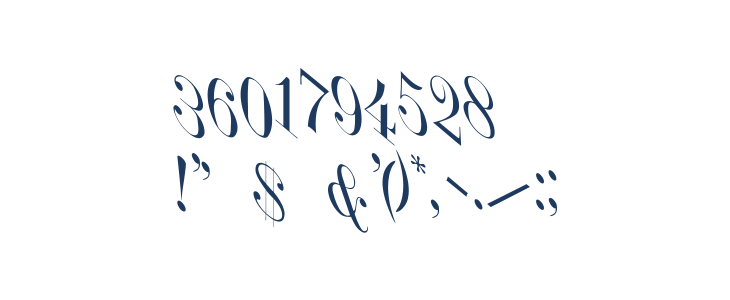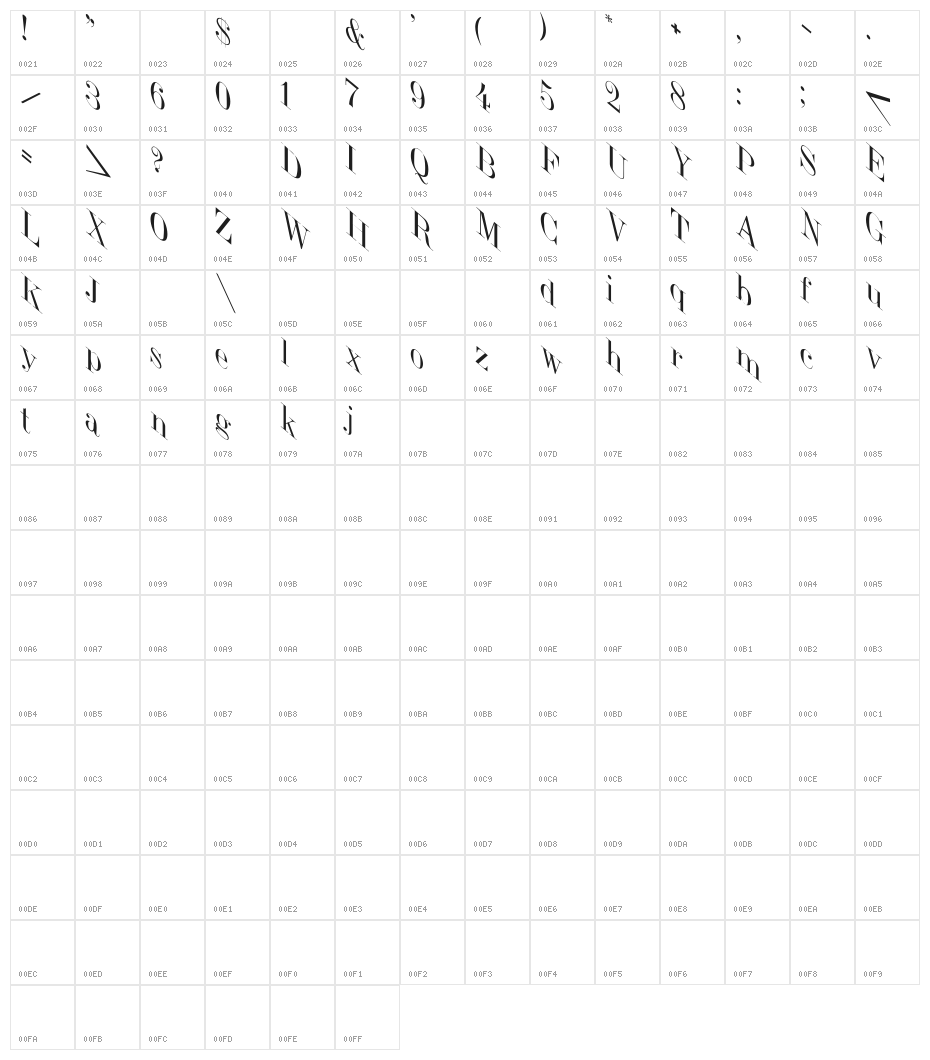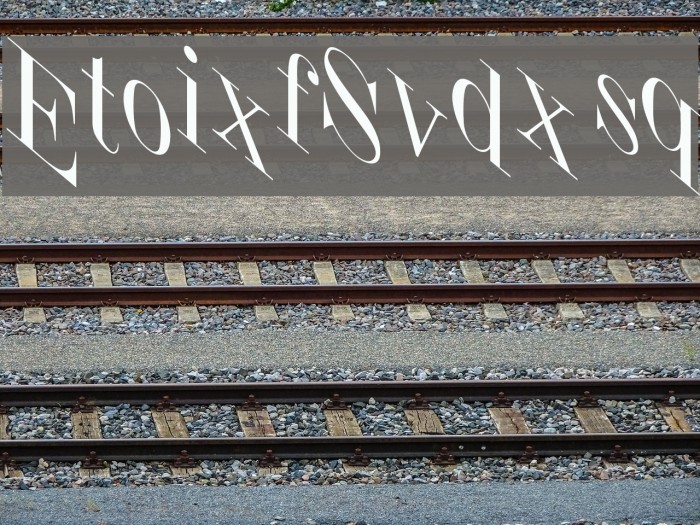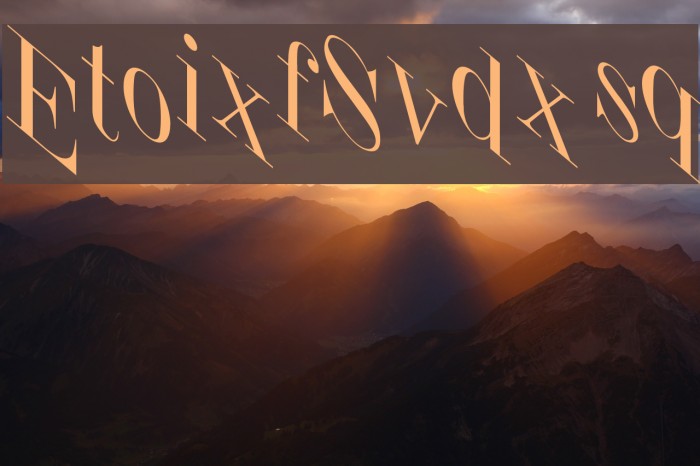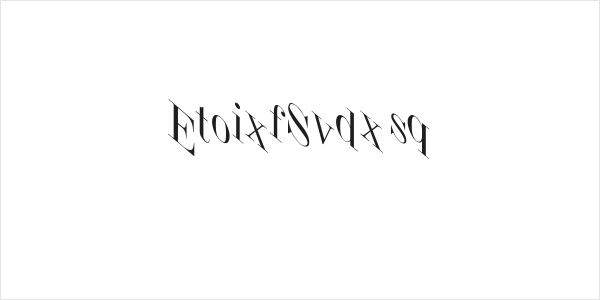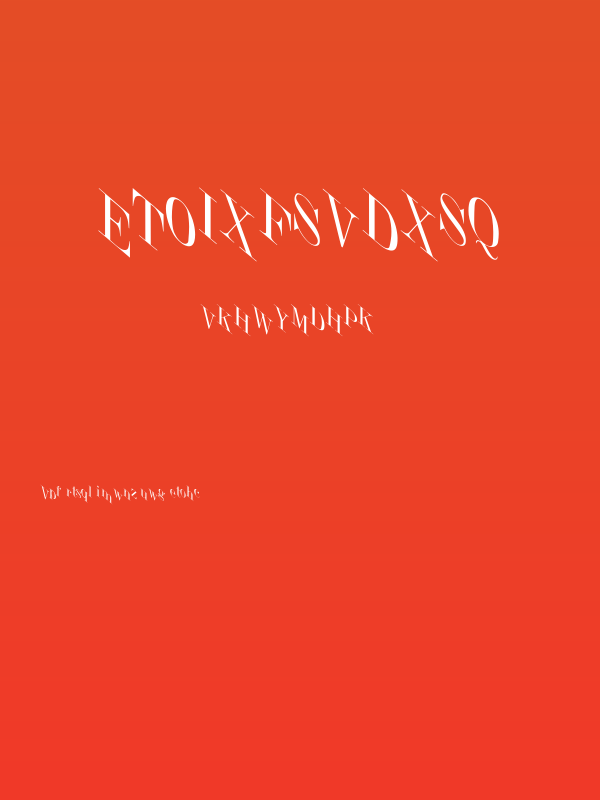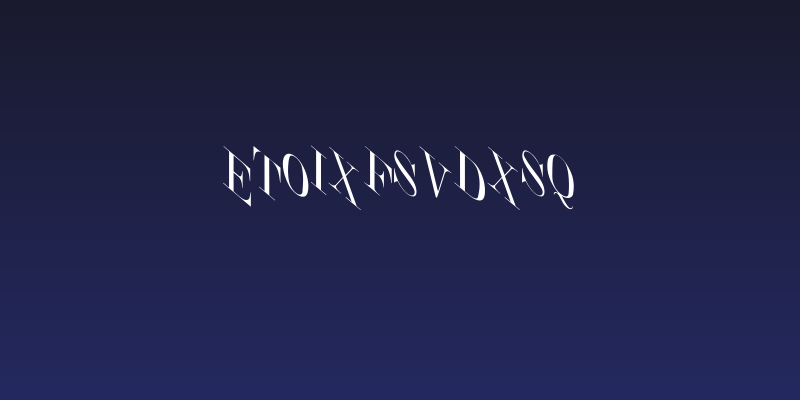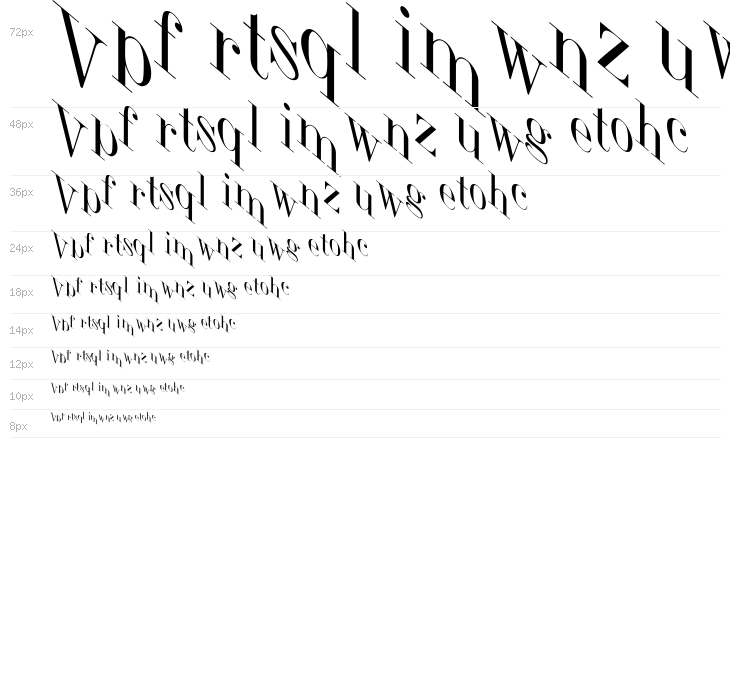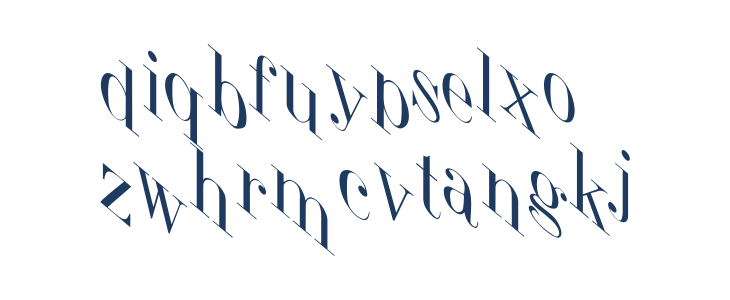
JumbleItalic Font
JumbleItalic Description
This font features a distinct italic style with elegant, elongated serifs and a high contrast between thick and thin strokes. The letters are slanted, giving a dynamic and sophisticated appearance. The uppercase characters are tall and commanding, while the lowercase letters maintain a consistent flow with a slightly narrower form. The numerals are stylishly designed, complementing the overall aesthetic. Special characters are crafted with attention to detail, enhancing the font's versatility. This typeface exudes a classic yet modern appeal, suitable for various design needs.